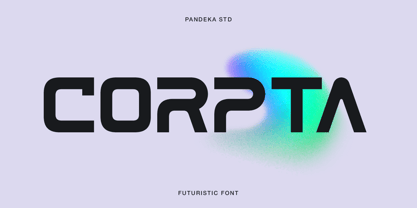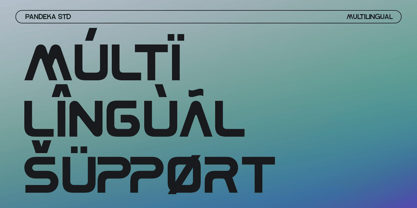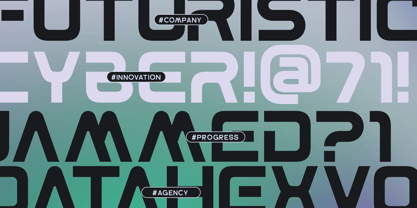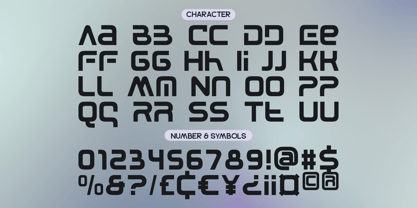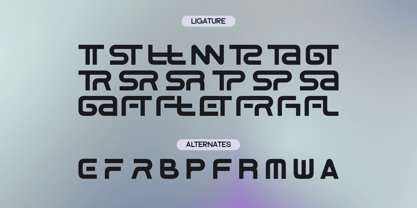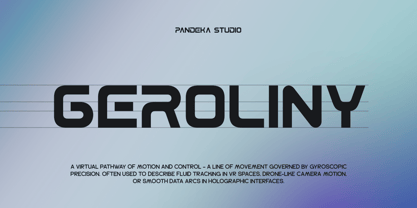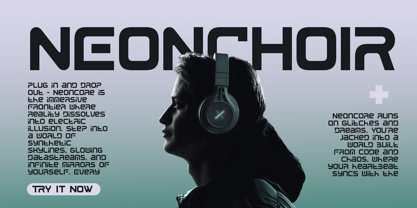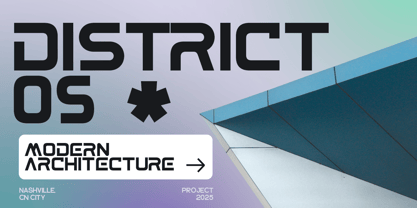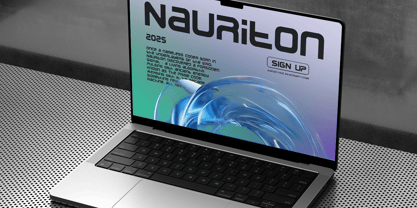
Corpta is a futuristic tech-inspired display font designed for innovation-driven projects. With its sleek and modern letterforms, it captures the essence of cutting-edge technology, cyber aesthetics, and forward-thinking design. Perfect for branding, UI design, esports, posters, album covers, and modern architecture themes, Corpta brings a sharp, digital edge to your typography.
The font comes in a single Regular style and is equipped with 25+ ligatures and alternates, allowing you to experiment with unique lettering combinations for a more dynamic look. Complete with uppercase, lowercase, numbers, punctuation, and multilingual support, Corpta offers both versatility and futuristic elegance. If you’re aiming for a tech-savvy, modern aesthetic, Corpta is the perfect choice.
• 1 Style: Regular
• Full Character Set: Uppercase, lowercase, numbers, symbols, and punctuation
• 25+ Ligatures and alternates